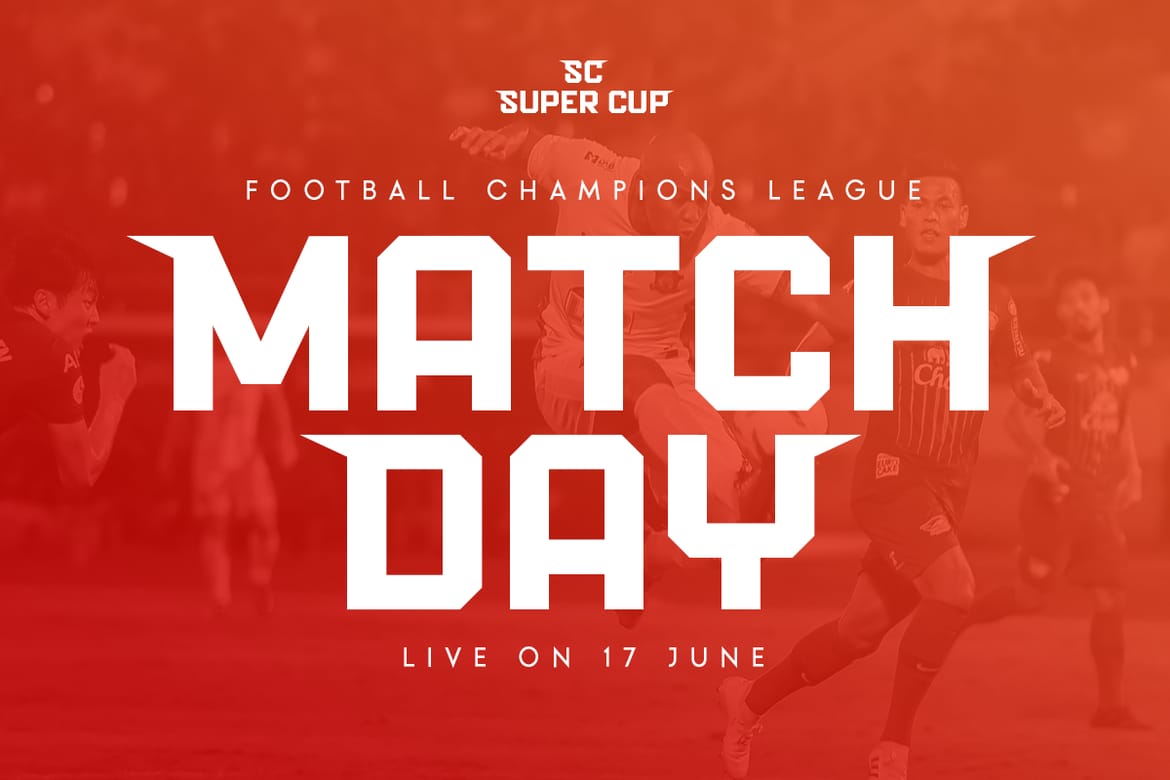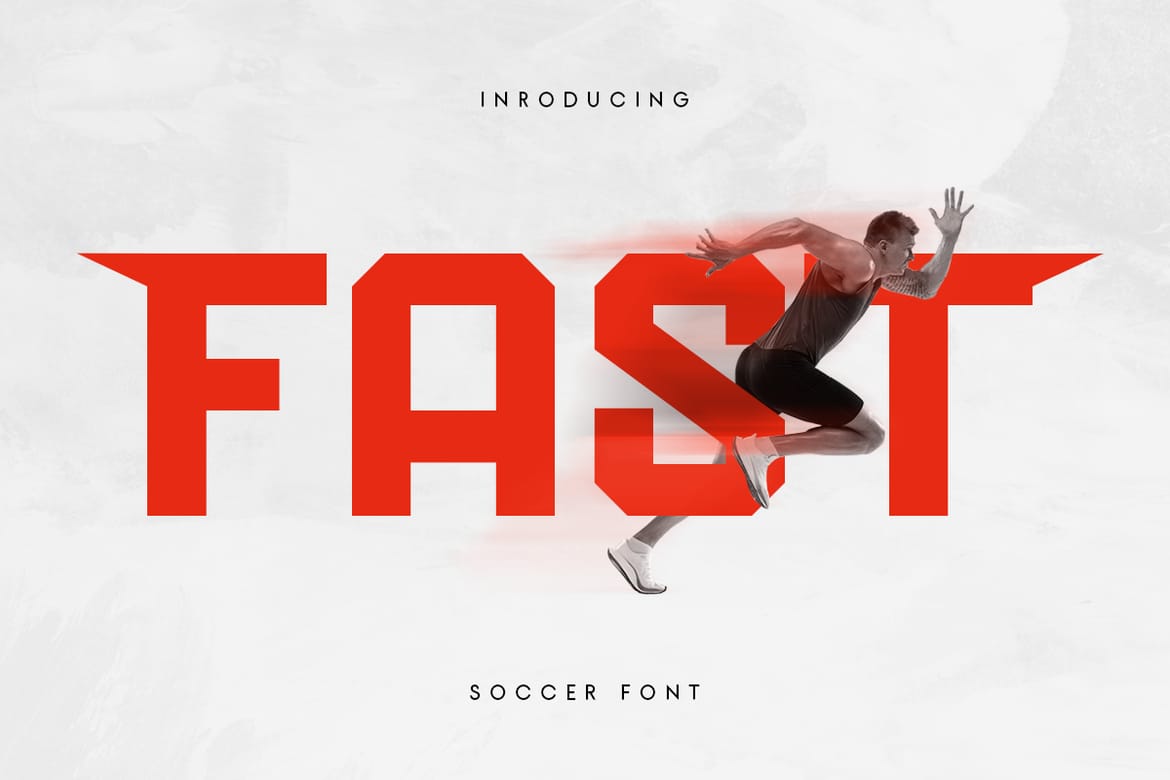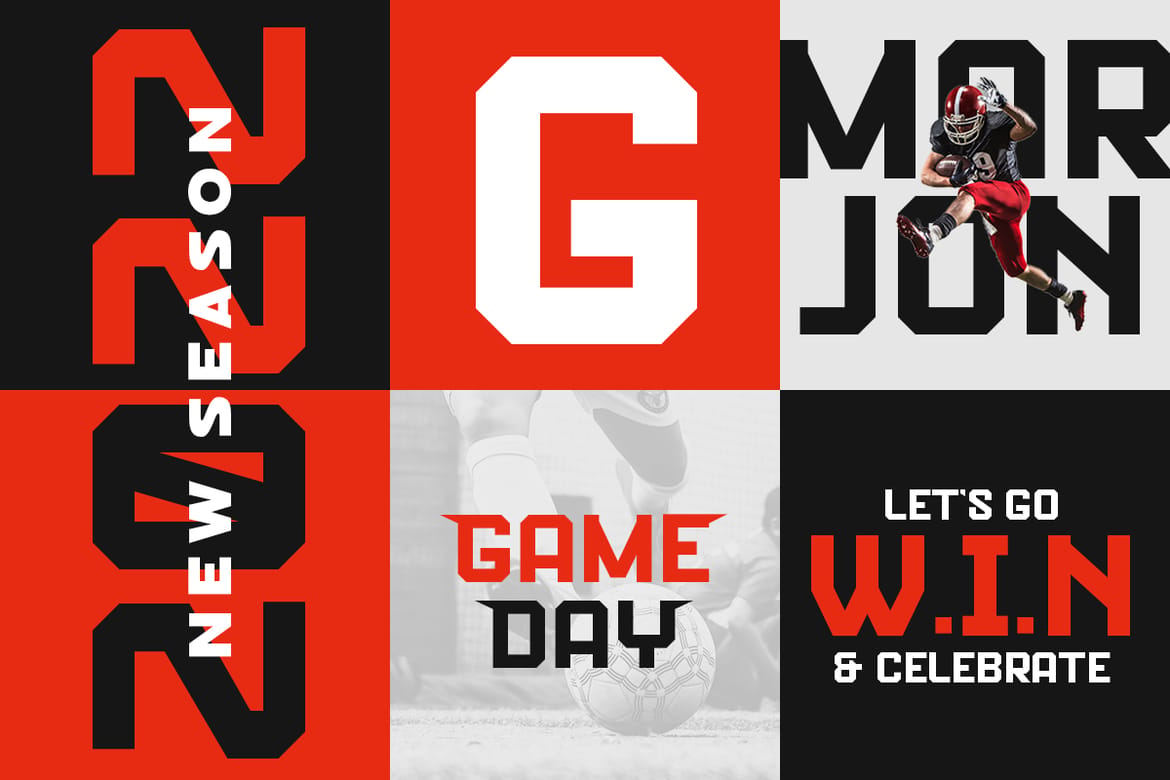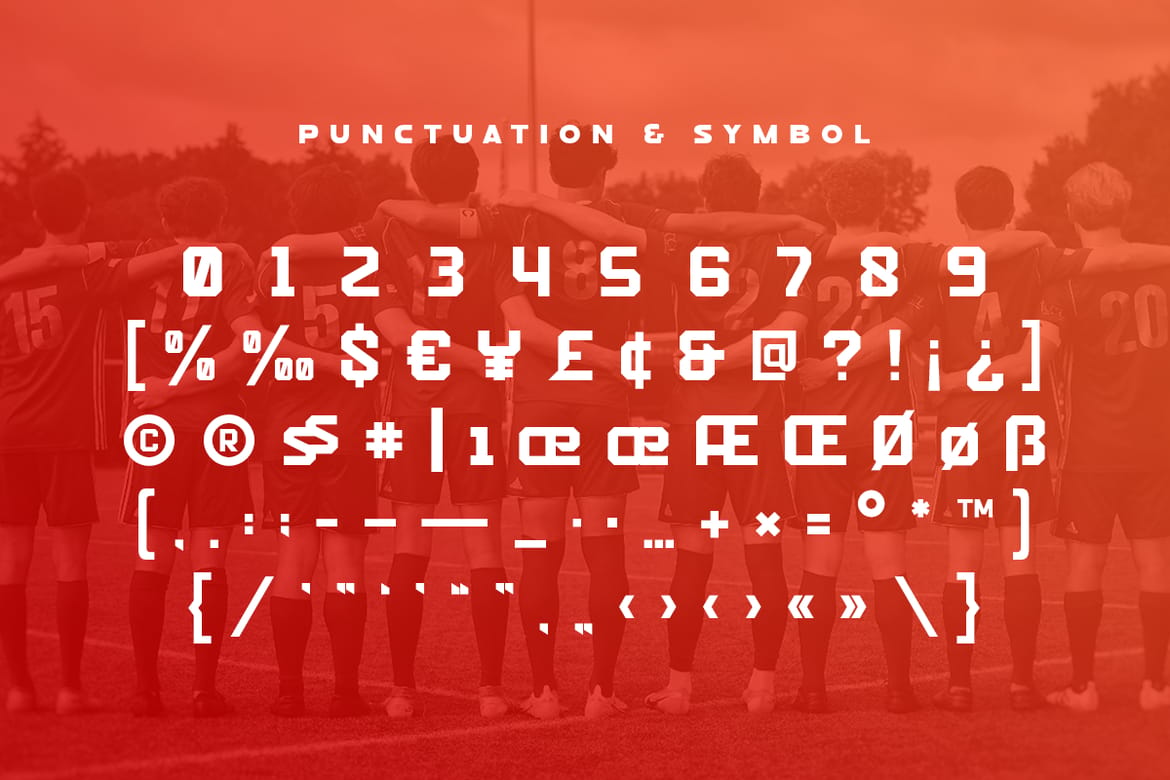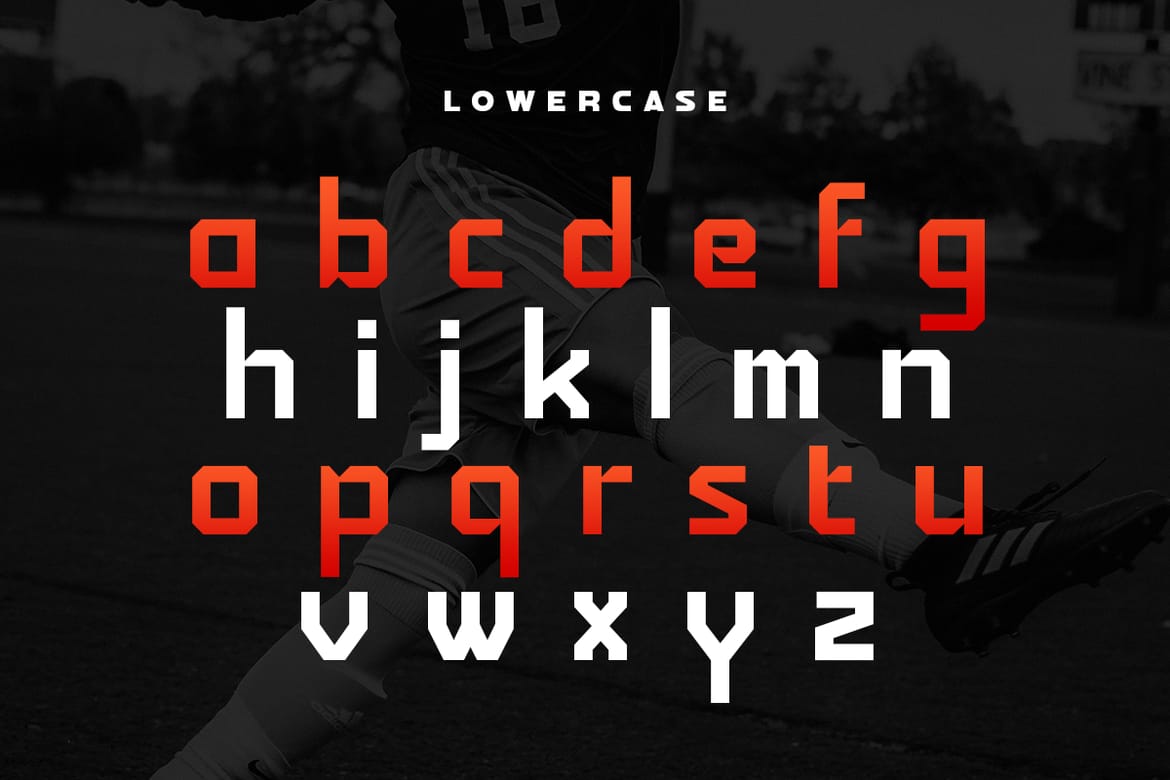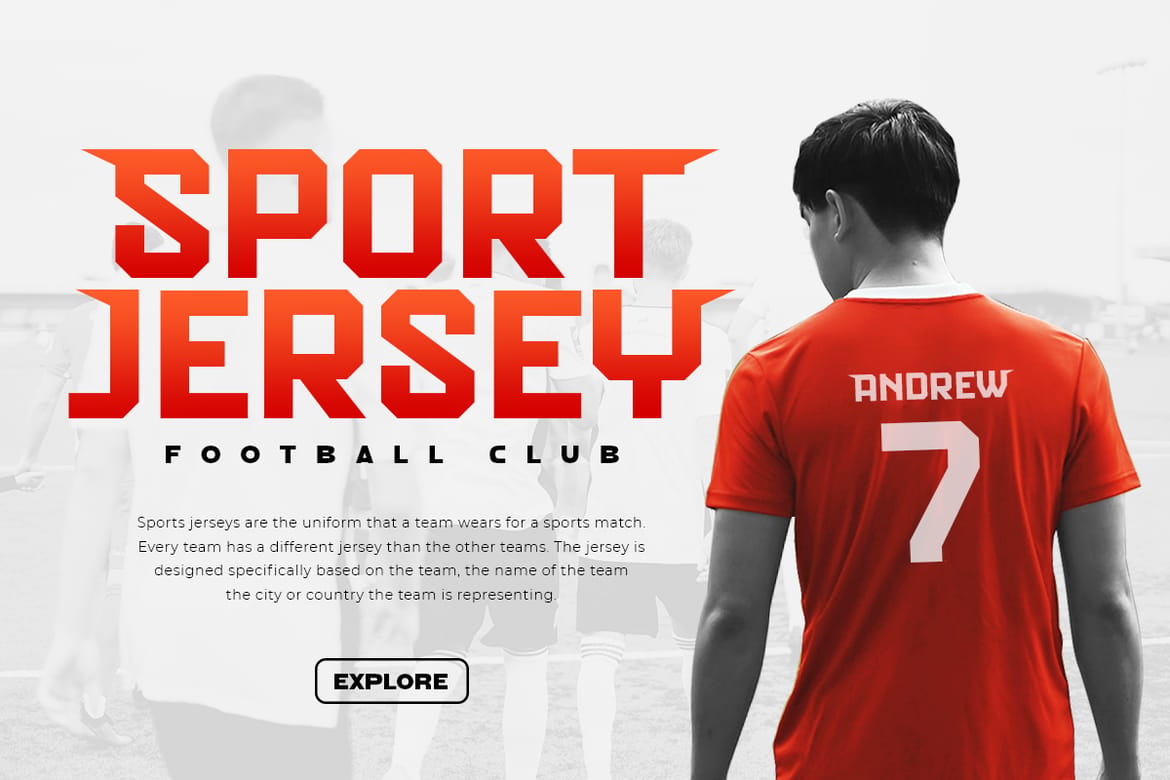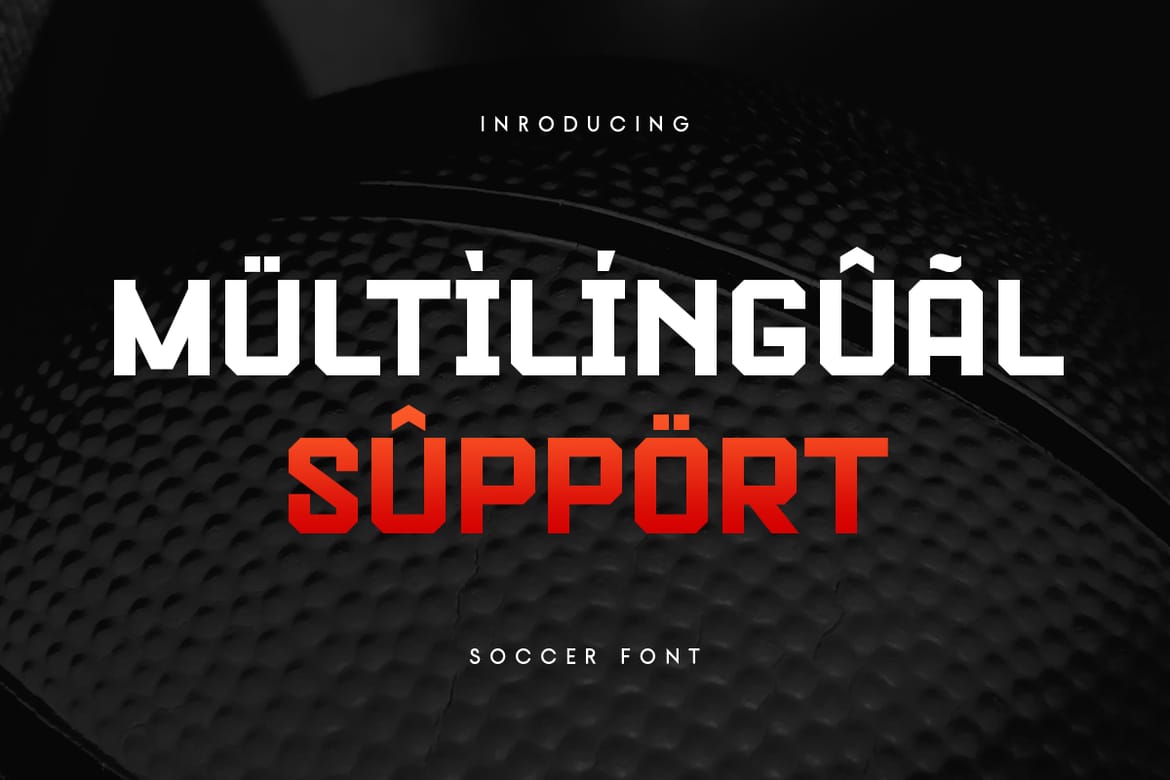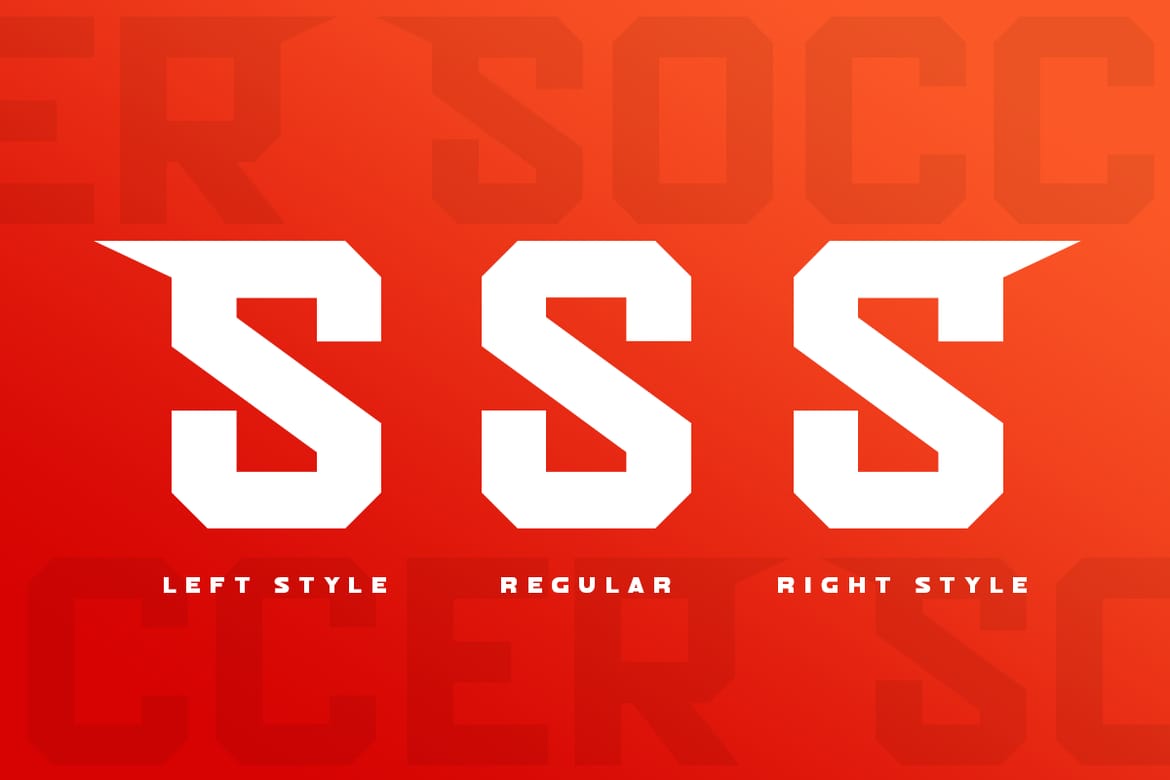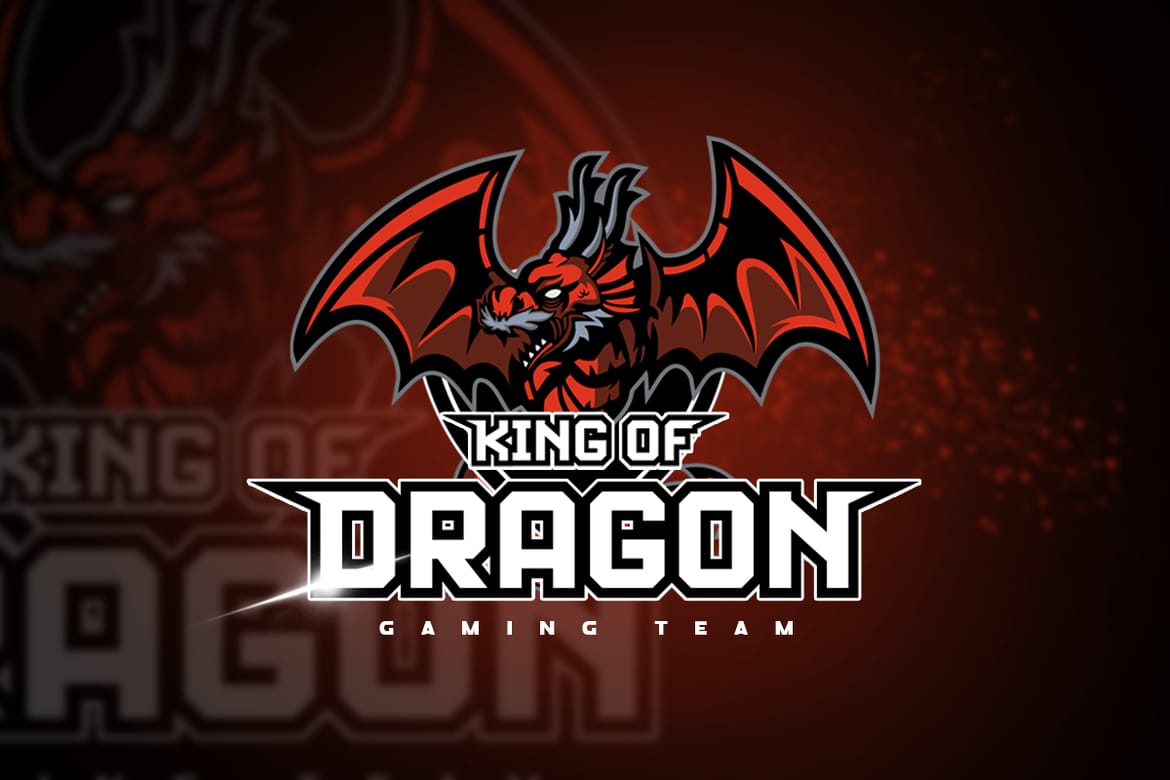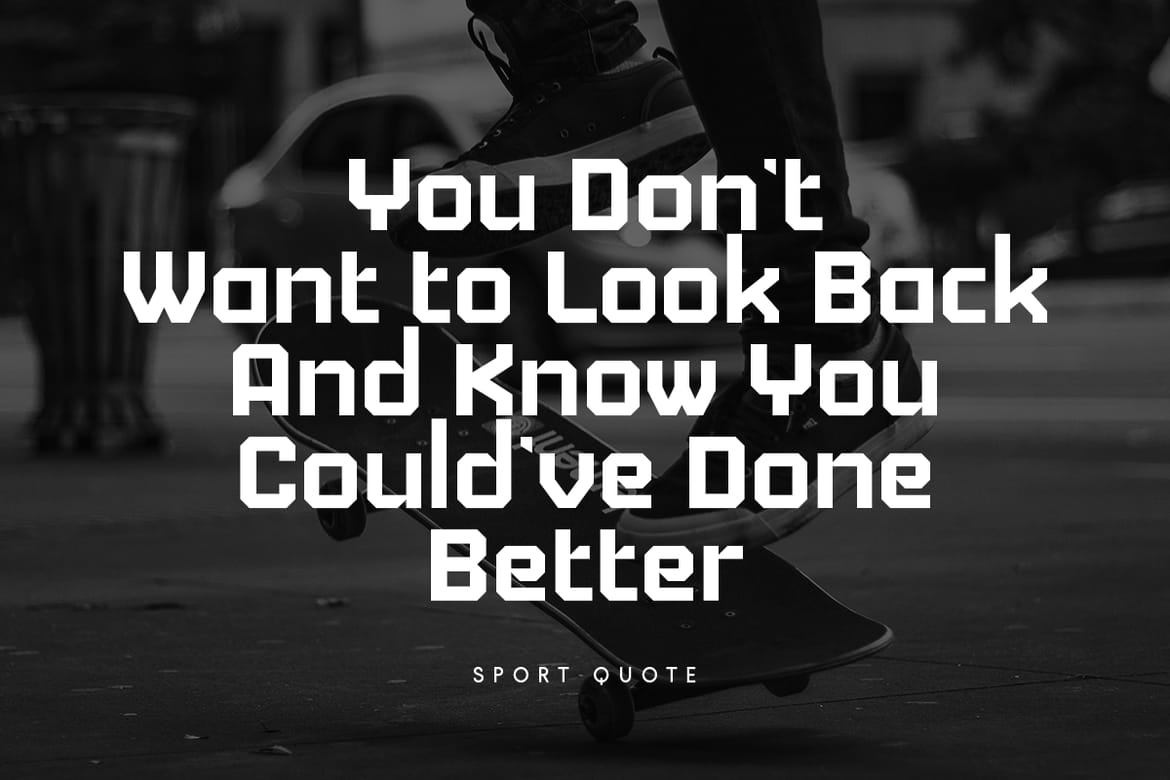
Soccer is a Modern Sport Logo font that created special for Logo, Title and more stand out typography for sport and action. It's so perfect to add your style and headline overview for sport, technology, actions, and fighting theme. And specially for this font, we crafted for bold action style and modern feels so enjoy to create any project that will show your main idea out.
Soccer Modern Sport Logo font ready with:
Creative characters prepared to get best results
Preview as a inspirations that you can do with Soccer font
Ready with All Uppercase characters
- Bold sport logo typography
- All uppercase creative characters